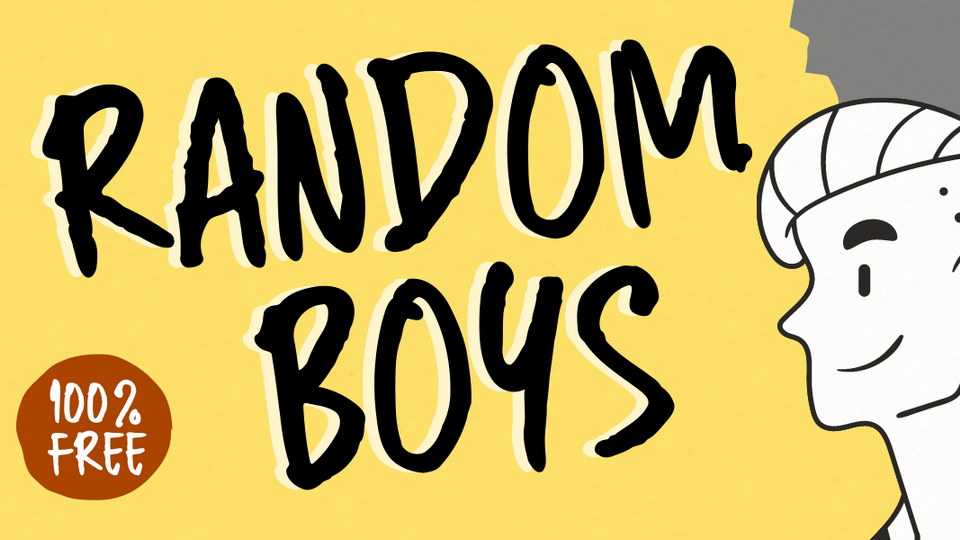
Download Random Boys font, a handwritten brush typeface with a natural feel and imperfections. Random Boys is suitable for crafts, notes, prints and other projects.